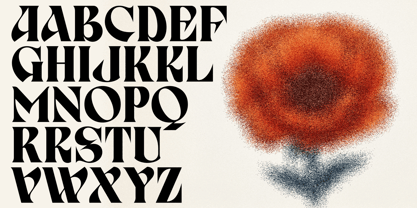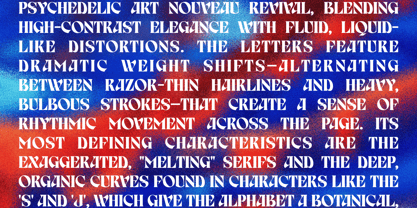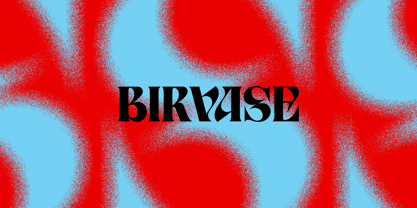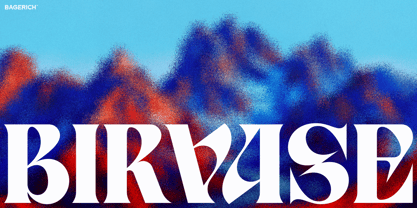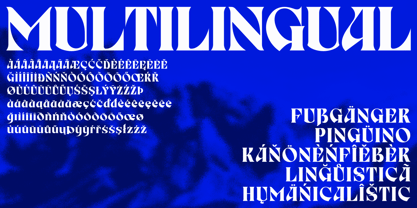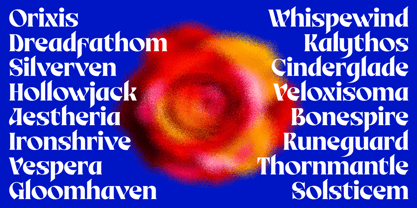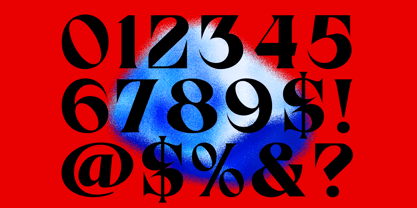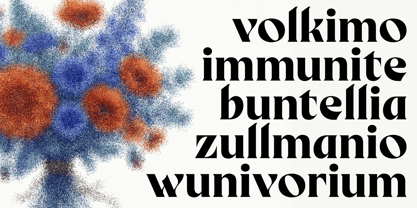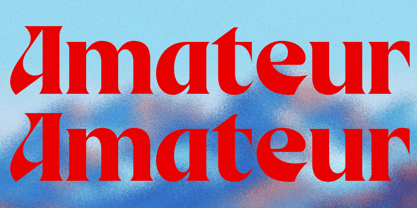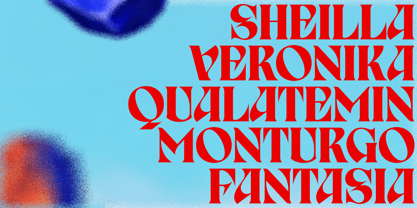
The Birvase Font Family was designed by Reza Rasenda and published by Zealab Fonts Division. Birvase contains 1 styles. More about this family
BIRVASE is a high-impact display font that masterfully bridges the gap between traditional serif elegance and avant-garde geometric flair. Drawing inspiration from the rugged, majestic silhouettes of mountain ranges, this typeface features bold, sweeping curves and sharp, dramatic terminals that demand immediate attention. Its unique architecture includes a "V" and "A" that interlock with a fluid, liquid-like grace, making it an ideal choice for brands that want to convey a sense of strength, adventure, and high-end sophistication. Whether it's towering over a landscape or anchoring a minimalist layout, BIRVASE brings a tactile, monumental energy to every character. Designed for the bold and the visionary, BIRVASE excels in environments where typography is the hero. From high-fashion editorial spreads and cinematic posters to luxury packaging and experimental branding, this font provides a rhythmic, almost musical flow to text. Its heavy weight and intricate negative spaces allow it to hold its own against complex textures—like the grainy, stippled landscape in its debut—while maintaining impeccable legibility. When you need a typeface that doesn't just sit on the page but actively defines the space it occupies, BIRVASE is the ultimate tool for creating an unforgettable visual identity.